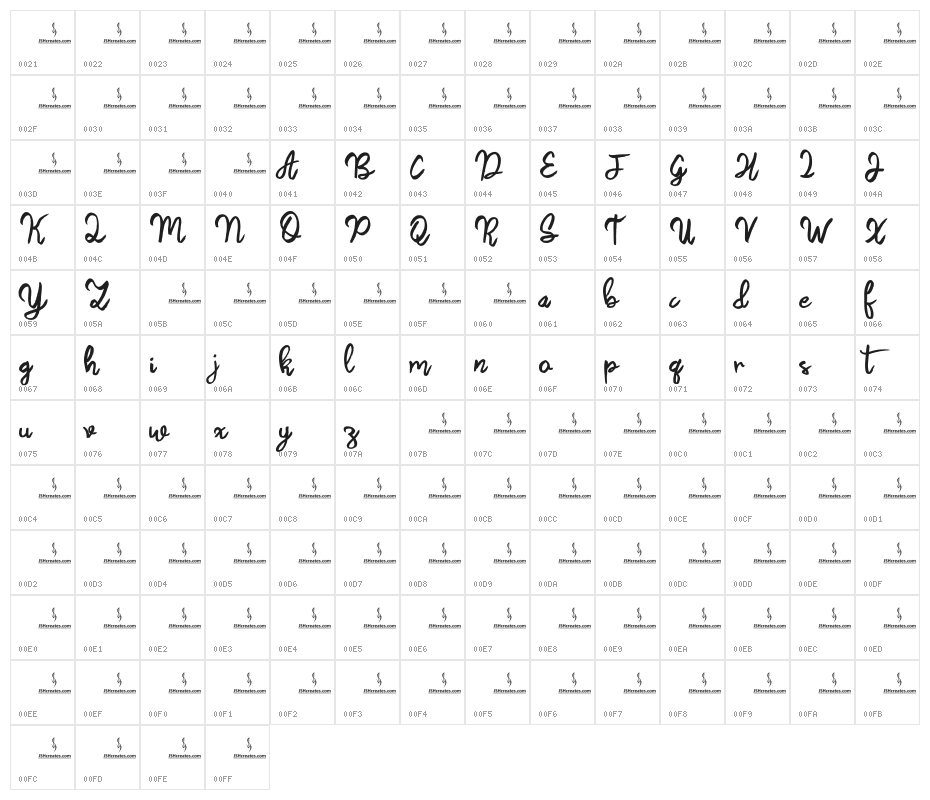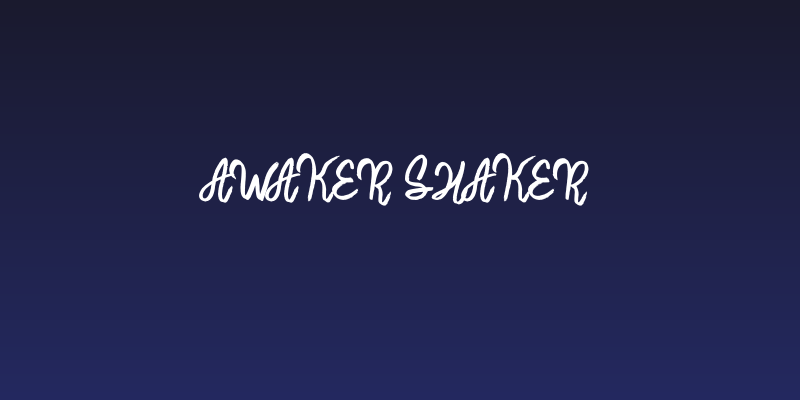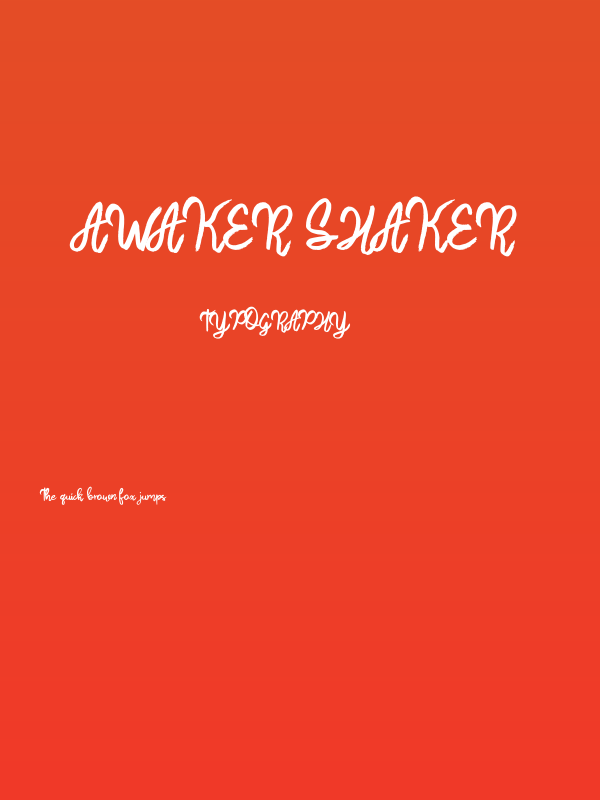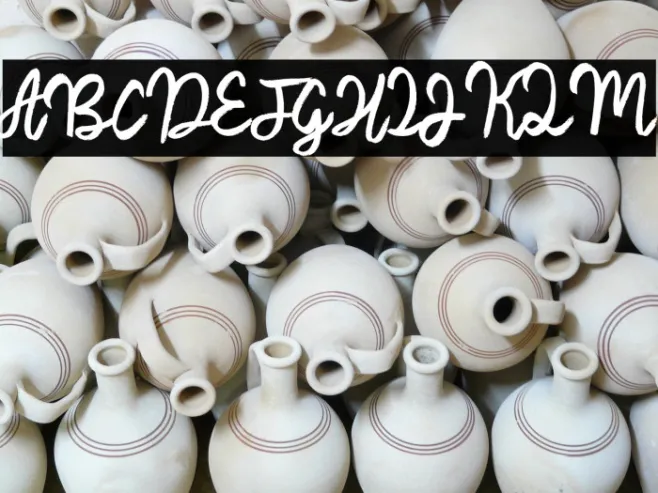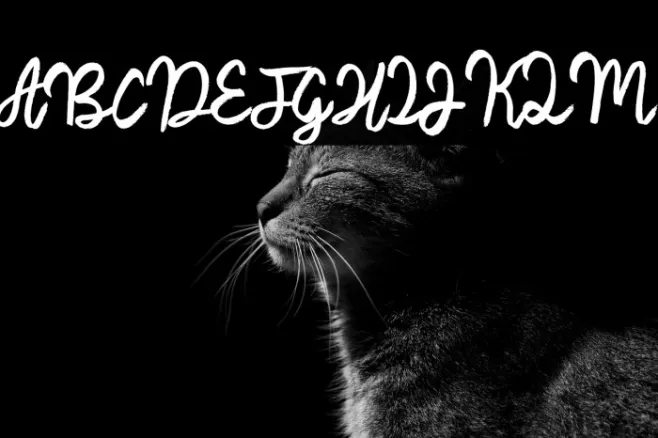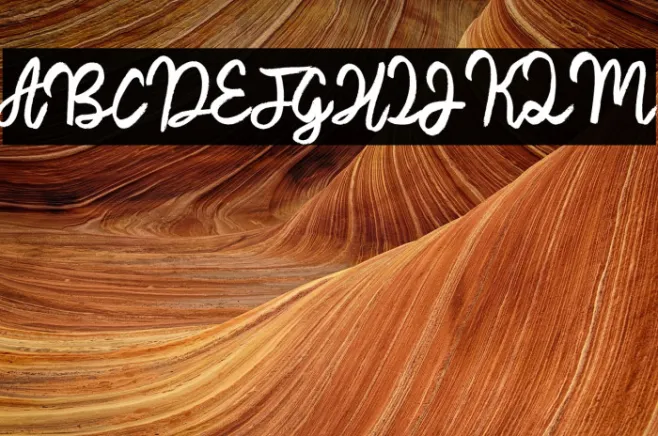
Awaker Shaker Font
Awaker Shaker Description
This font features a dynamic and expressive script style, characterized by its fluid, cursive strokes and bold presence. The letters are interconnected, creating a seamless flow that mimics natural handwriting. Its thick strokes and high contrast give it a striking appearance, making it suitable for attention-grabbing designs. The uppercase letters maintain a consistent height, while the lowercase letters exhibit a playful variation in size and form, adding to its charm. The overall style is both modern and artistic, making it versatile for various creative applications.
| Overall Style | Modern, Artistic |
| Proposed Projects | Ideal for branding, invitations, greeting cards, and artistic projects requiring a personal touch. |